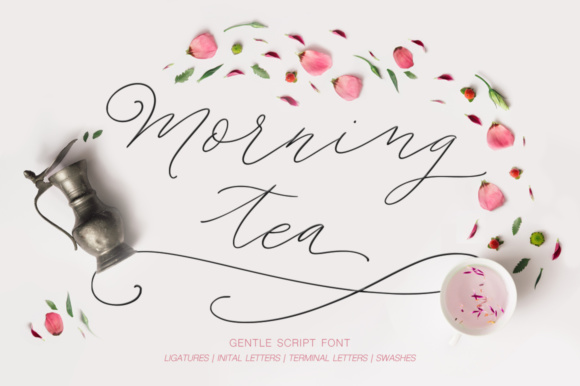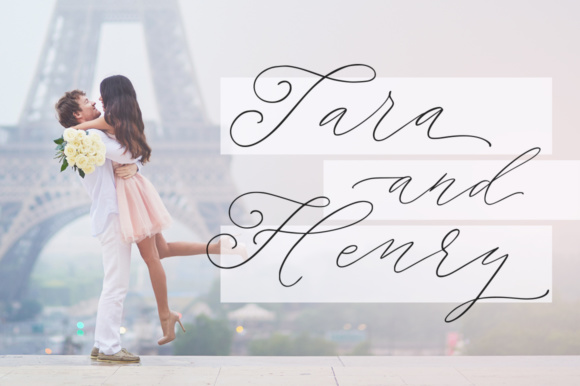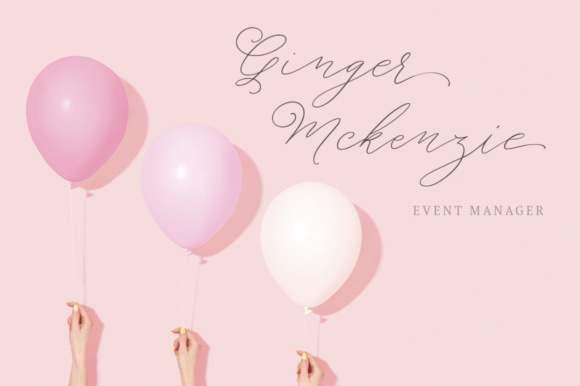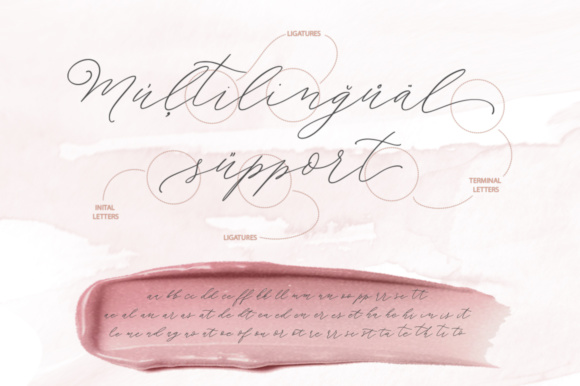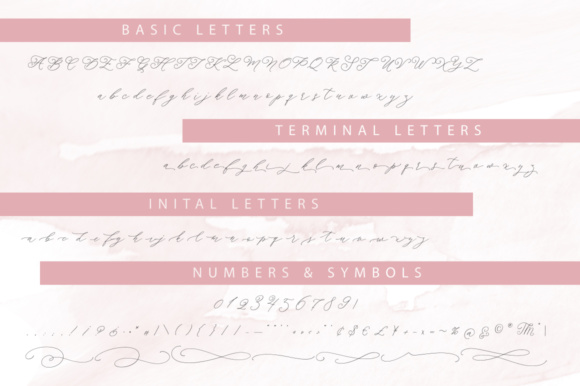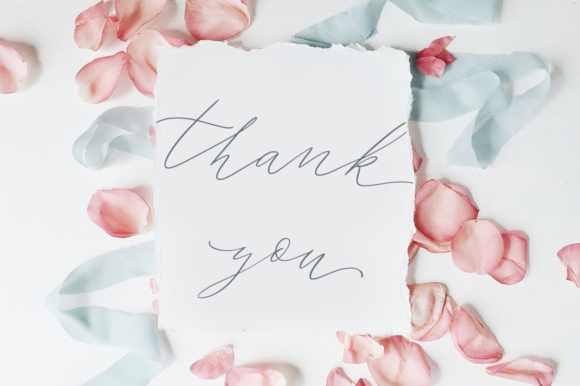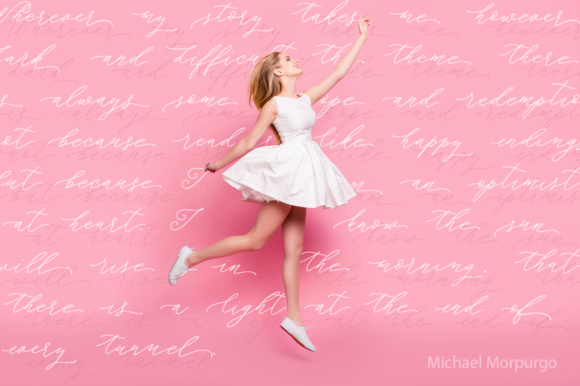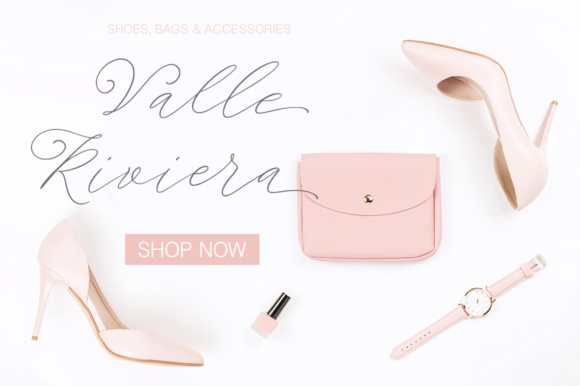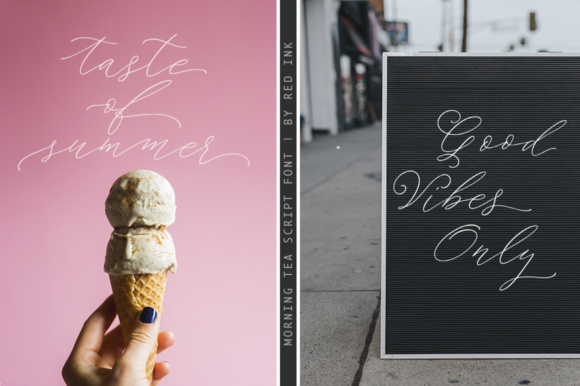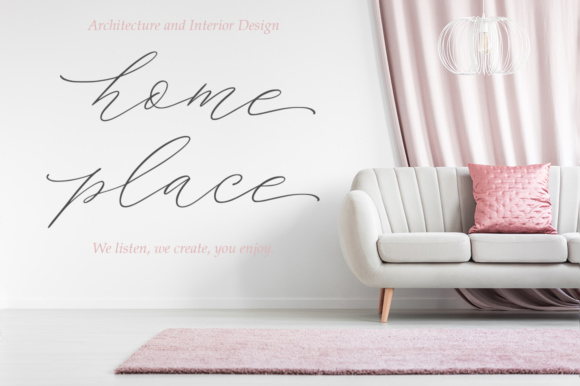
Morning Tea Script Font
About Morning Tea Script Font
Morning Tea is a signature hand drawn font. Morning Tea is filled with calligraphic magic, you’ll get a incredible font variety of letters and combinations.
Morning tea is perfect for branding projects, logo designs, handwritten quotes and gentle romantic messages.